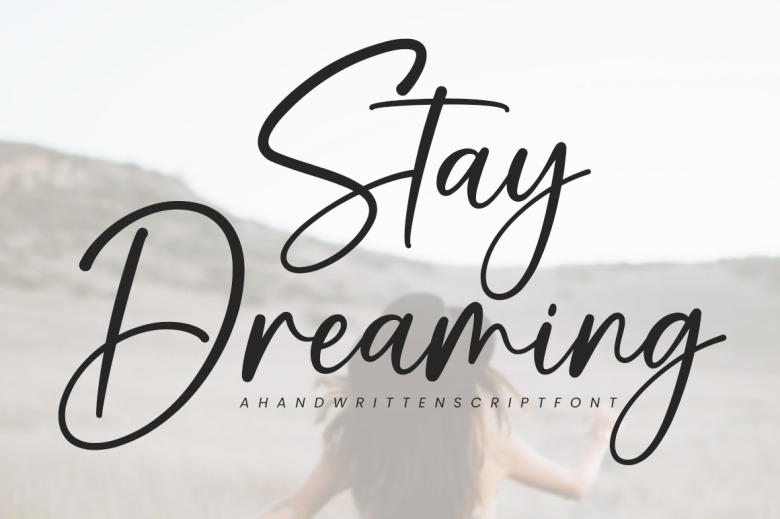
Stay Dreaming Font
Stay Dreaming Font is a Script Handwriting type of textured typeface that has an elegant and classy signature appearance and glamorous style that any designer love to use in there projects. Stay Dreaming Font is a regular contrast stroke, with style letters fun to use, plus a bunch of alternates and ligatures made.
This is a versatile style of Script font with which you can combine in creating stunning projects. Stay Dreaming Script Font is a luxury, handwriting, calligraphy, perfect for branding logos, invitations, wedding stationery, lovely cards, business cards, and modern projects.
Stay Dreaming Handwritten Script Font